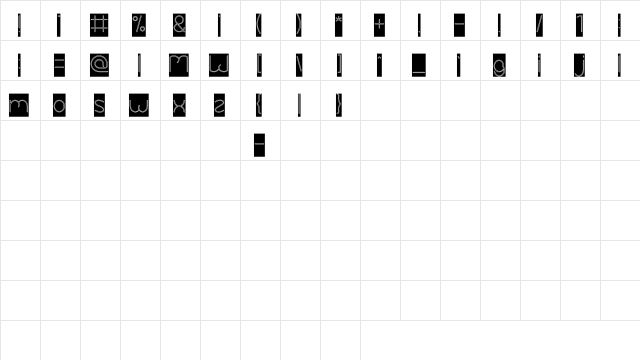
Essential Arrangement-Hollow-In Regular
Design Context for Essential Arrangement-Hollow-In Typeface
Essential Arrangement-Hollow-In offers clean, dependable letterforms without strong stylistic allegiance, making it a practical choice for designers who need flexibility.